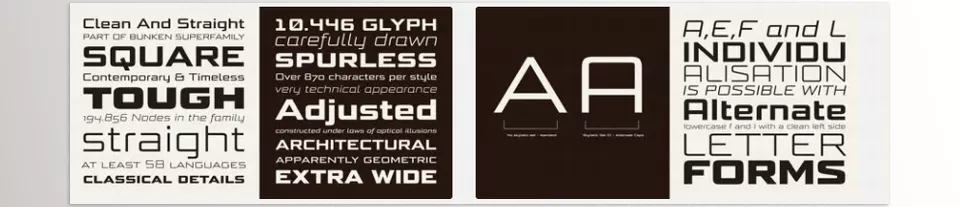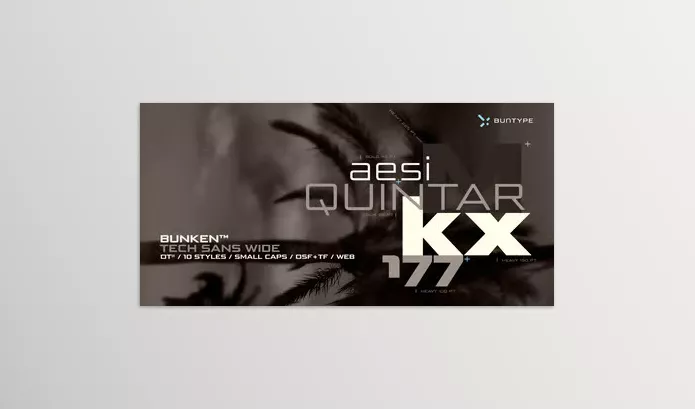
Bunken Tech Sans Wide is a modern sans-serif typeface that merges the structured elegance of traditional fonts with a more relaxed contemporary style.
- Extensive Styles: Each of the available sixteen styles, from Light to Heavy, comes with matching italics.
- Versatile Widths: Best for design applications, this font also comes in Condensed, Normal, and Wide widths.
- Rich Character Set: Supports over 58 languages with more than 870 characters, contributing to a rich character set for each style.
- OpenType Features: Advanced typography can be achieved with small capitals, ligatures, alternate characters, and more.
- Variety of Figures: Sets offered include Lining, Oldstyle, and Small Cap Figures, providing a total of five sets of figures.
Image 1: The versatility of this typeface offers different applications from branding to advertising and communications.
Image 2: A Blend of style and readability, which strengthens the content of bold and striking headlines, sophisticatedly.